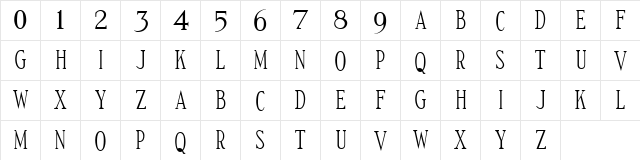
Behrens Classic Condensed Handset Roman Regular
Design Context for Behrens Classic Condensed Handset Roman Typeface
Behrens Classic Condensed Handset Roman has the warm character of retro typography — evoking diners, record sleeves, and the golden age of print advertising.
Font Pairing: Combine Behrens Classic Condensed Handset Roman with a simple slab or neutral sans — period-accurate companions reinforce the vintage feel without competing for attention.
Pro Tip: Lean into Behrens Classic Condensed Handset Roman's period character by pairing it with aged paper textures, muted colour palettes, and vintage illustration styles.